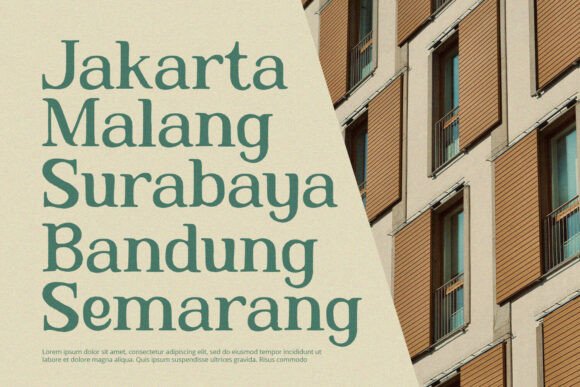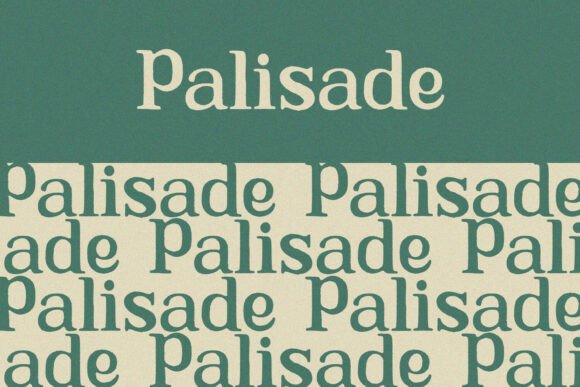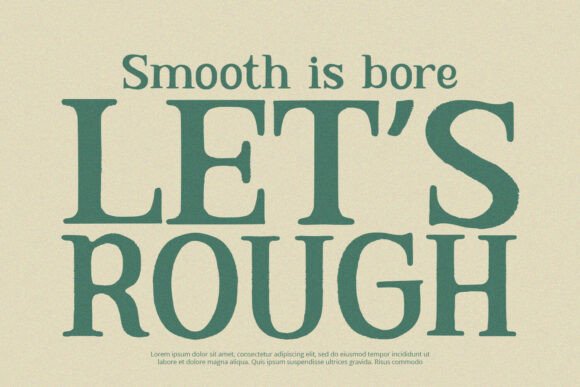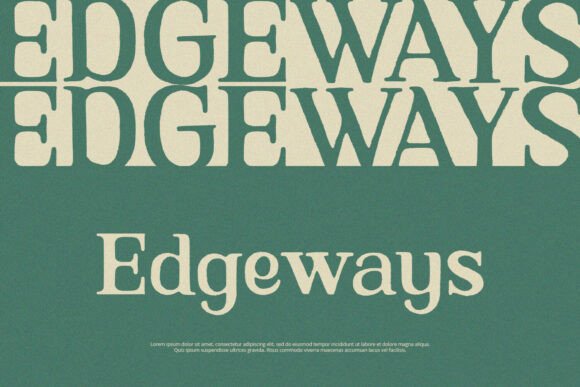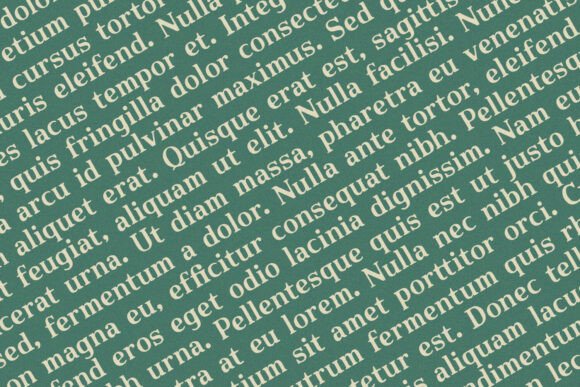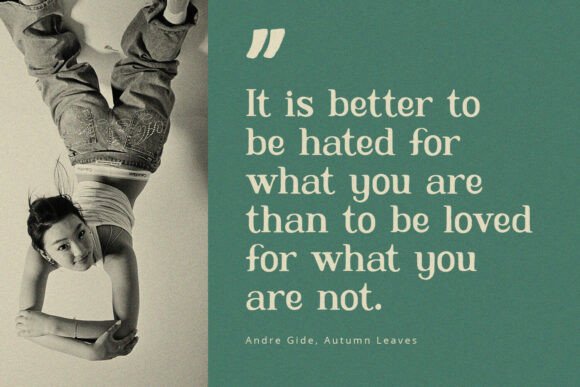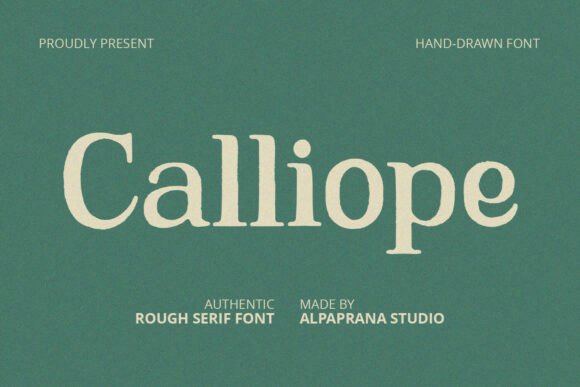
Introducing Calliope Font: The Perfect Blend of Elegance and Classic Charm
Are you a designer or crafter looking for a font that exudes elegance and classic sophistication? Look no further than Calliope Font. This rough serif font is the perfect addition to any design project, offering a unique blend of refinement and rugged charm. In this article, we’ll explore the features and benefits of Calliope Font, and discuss how it can elevate your designs to the next level.
What is Calliope Font?
Calliope Font is a rough serif font that boasts an elegant and classic aesthetic. Its unique blend of refined lines and rugged texture gives it a distinctive look that’s sure to capture attention. The font’s design is inspired by traditional serif fonts, but with a modern twist that makes it perfect for a wide range of design applications.
Key Features of Calliope Font
So, what makes Calliope Font so special? Here are just a few of its key features:
- Rough Serif Design: Calliope Font features a rough serif design that gives it a unique, textured look. This makes it perfect for designs that require a bit of grit and character.
- Elegant and Classic Aesthetic: Despite its rough texture, Calliope Font exudes elegance and classic sophistication. It’s the perfect choice for designs that require a touch of refinement.
- Highly Versatile: Calliope Font is incredibly versatile, making it suitable for a wide range of design applications. From magazines and packaging to posters and t-shirts, this font can do it all.
Use Cases for Calliope Font
So, what can you use Calliope Font for? The possibilities are endless, but here are a few ideas to get you started:
- Magazines and Editorial Design: Calliope Font is perfect for magazine and editorial design, adding a touch of elegance and sophistication to any publication.
- Packaging Design: The font’s rugged texture and classic aesthetic make it a great choice for packaging design, particularly for luxury brands.
- Posters and Flyers: Calliope Font is a great choice for posters and flyers, adding a touch of drama and flair to any design.
- Shopping Bags and Merchandise: The font’s unique texture and classic aesthetic make it perfect for shopping bags, t-shirts, and other merchandise.
- Book Covers and Photography: Calliope Font is also a great choice for book covers and photography, adding a touch of elegance and sophistication to any project.
- Special Events and Weddings: The font’s classic aesthetic and elegant feel make it perfect for special events and weddings, particularly for luxury brands.
Tips for Using Calliope Font
Here are a few tips for using Calliope Font in your designs:
- Experiment with Font Sizes: Calliope Font looks great in a variety of font sizes, from large headlines to smaller body text.
- Pair with Other Fonts: The font pairs well with other serif and sans-serif fonts, making it easy to create visually appealing combinations.
- Use for Headlines and Titles: Calliope Font is perfect for headlines and titles, adding a touch of drama and flair to any design.
In conclusion, Calliope Font is a versatile and elegant font that’s perfect for designers and crafters looking to add a touch of classic sophistication to their designs. With its rough serif design and elegant aesthetic, this font is sure to capture attention and elevate your designs to the next level. Whether you’re working on a magazine, packaging design, or special event, Calliope Font is the perfect choice.